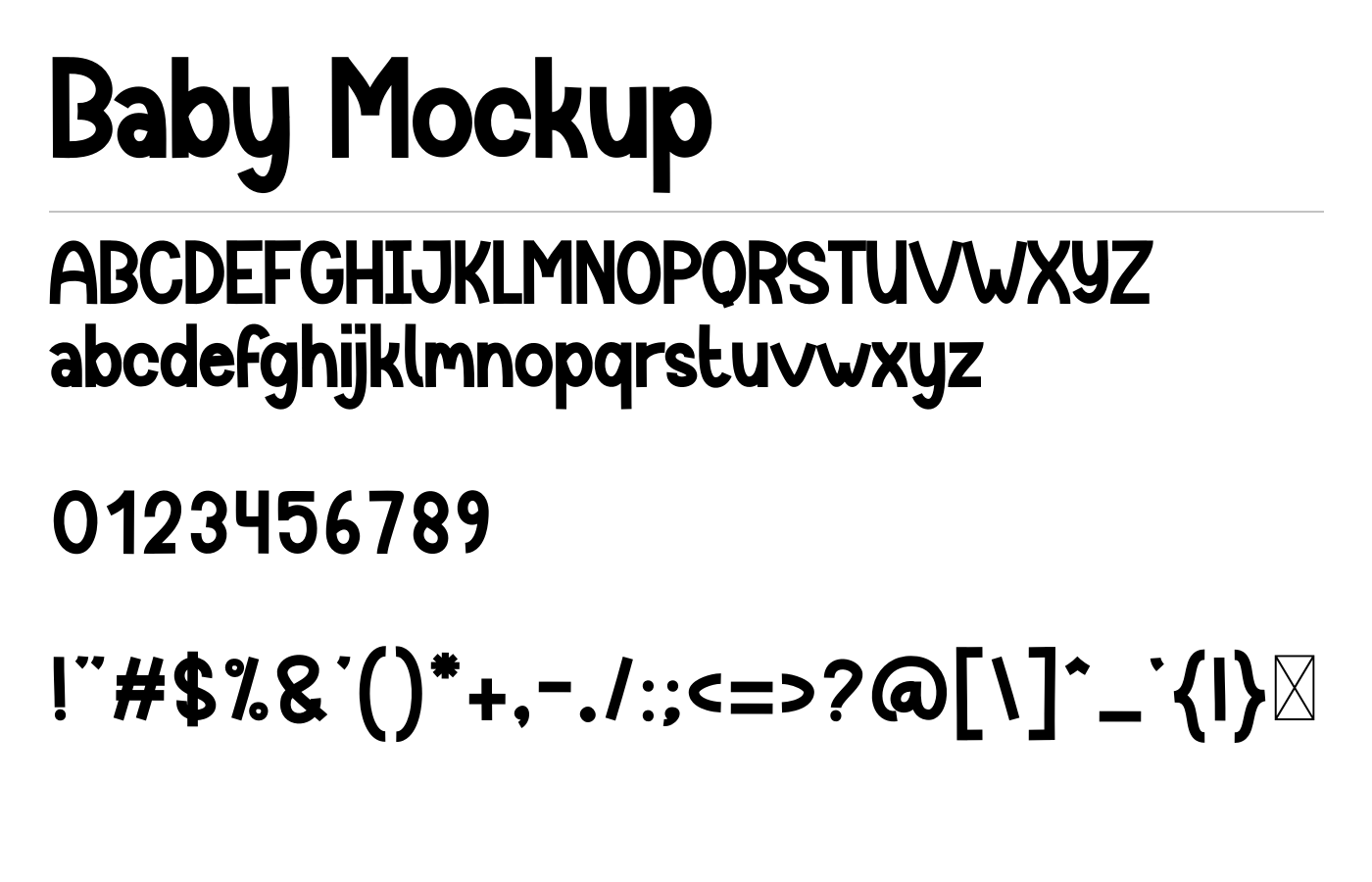
Baby Mockup is a playful sans serif font featuring bold, rounded letterforms with a slightly irregular, hand-drawn feel. It combines a friendly, casual style with clear readability, making it ideal for children's products, fun branding, and informal designs that want to convey warmth and approachability. Its quirky shapes and strong presence work well for headlines, packaging, and any project seeking a youthful, energetic vibe.
Baby Mockup Font
About Baby Mockup Font